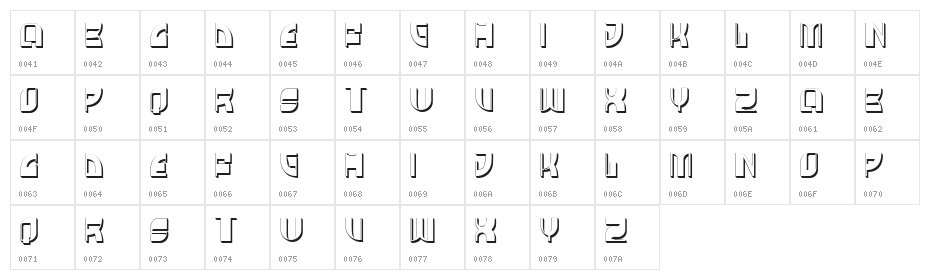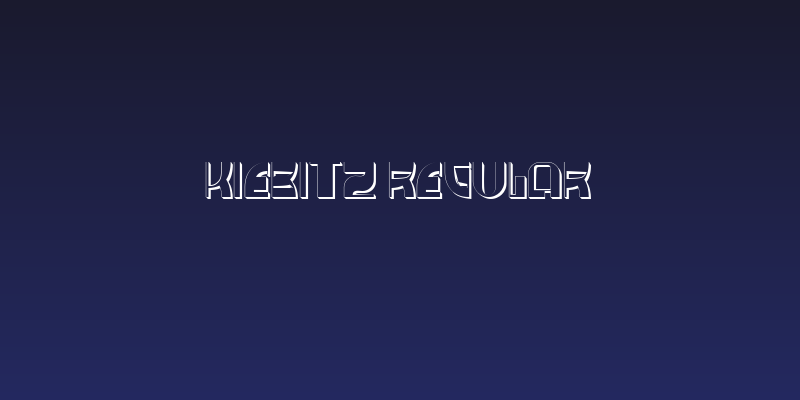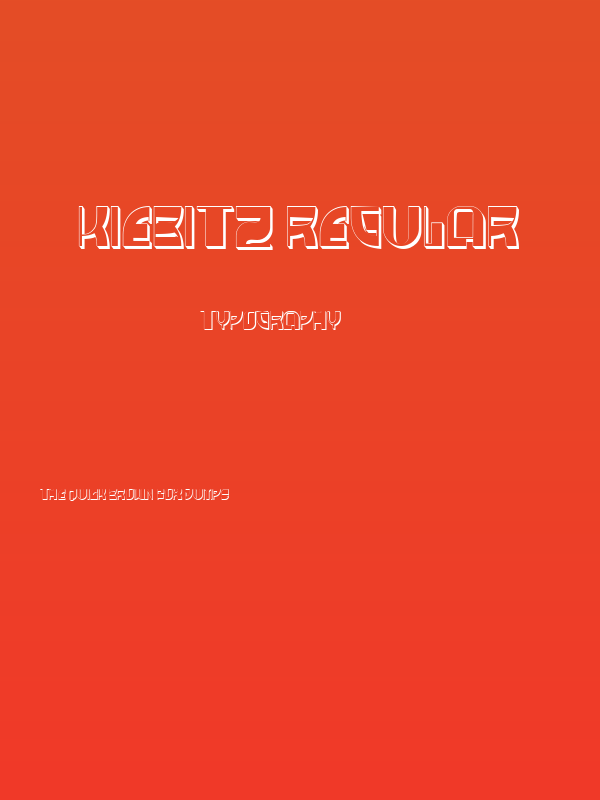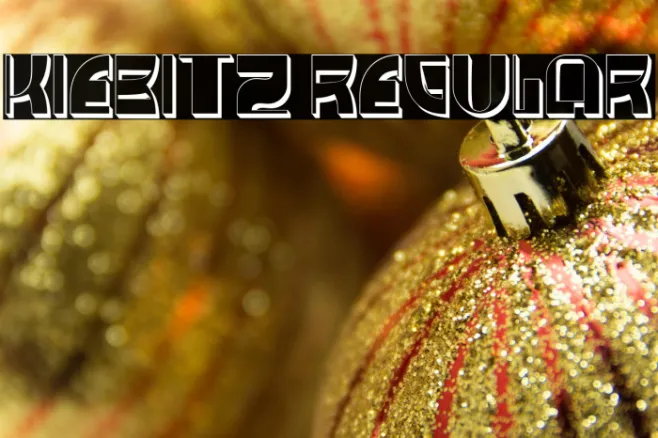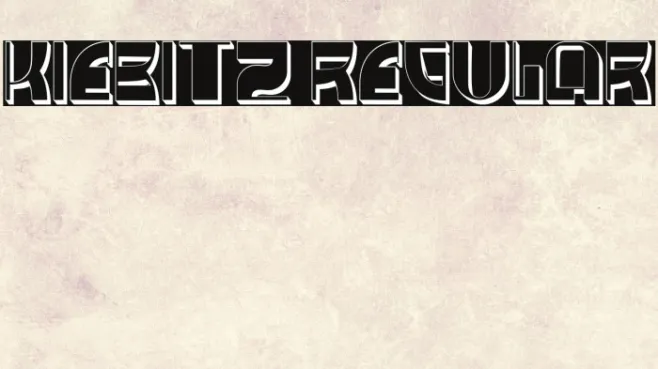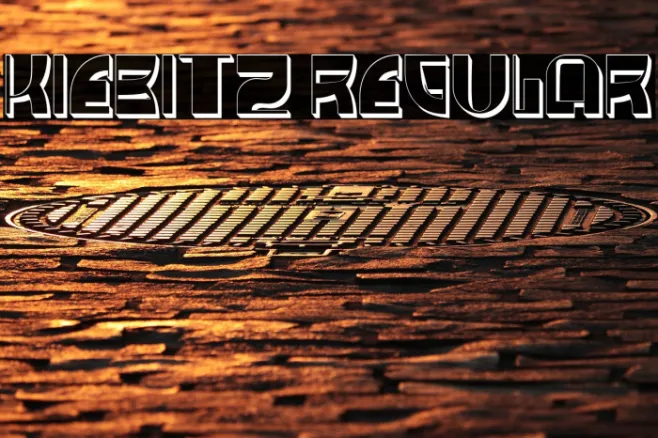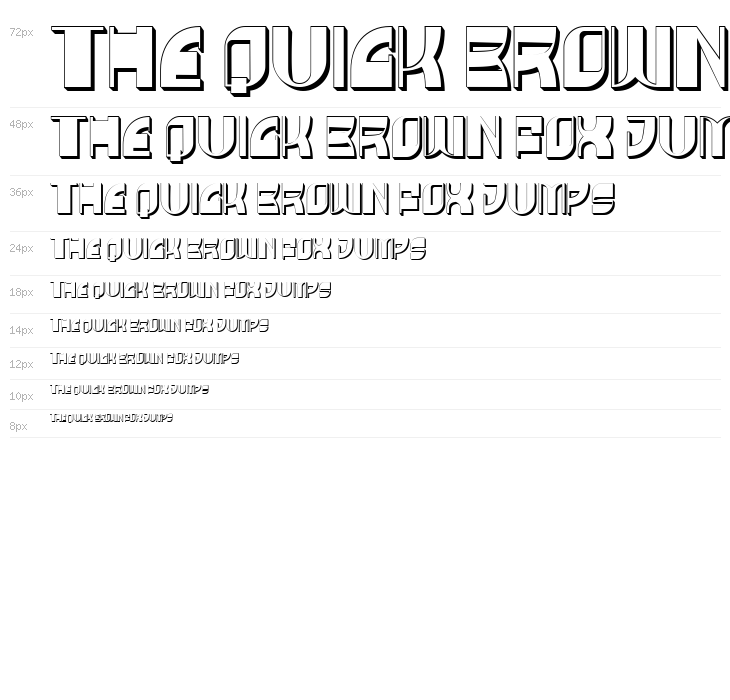
Kiebitz Regular Font
Kiebitz Regular Description
This font features a bold and geometric design with a futuristic flair. The characters are constructed with a combination of thick and thin lines, creating a sense of depth and dimension. The uppercase letters are particularly striking, with angular shapes and sharp edges that give them a dynamic appearance. The lowercase letters maintain the same geometric style, ensuring consistency across the typeface. The numerals and special characters are designed to match the overall aesthetic, making this font suitable for a variety of creative projects. Its unique style makes it ideal for use in headlines, posters, and branding materials where a modern and eye-catching look is desired.